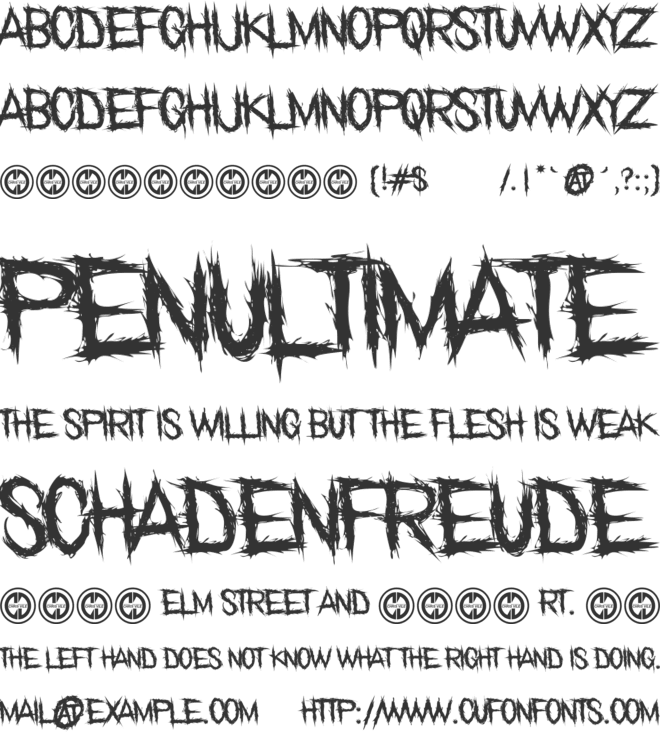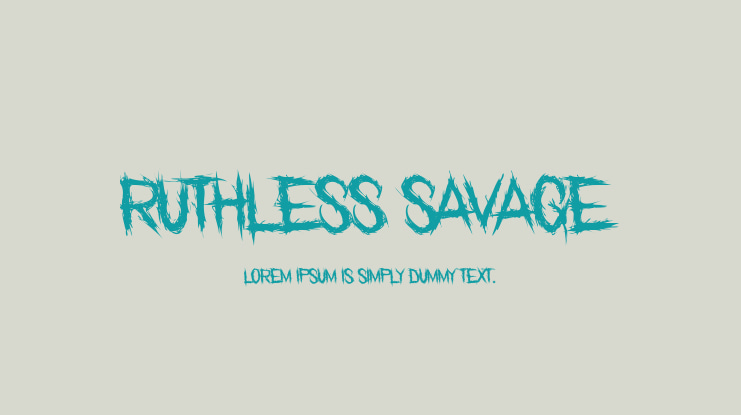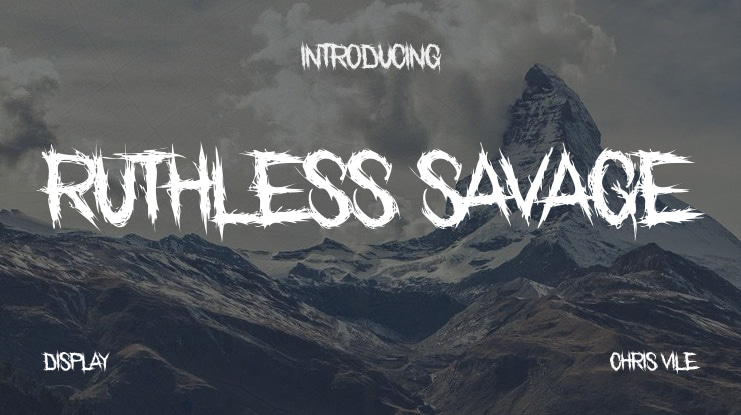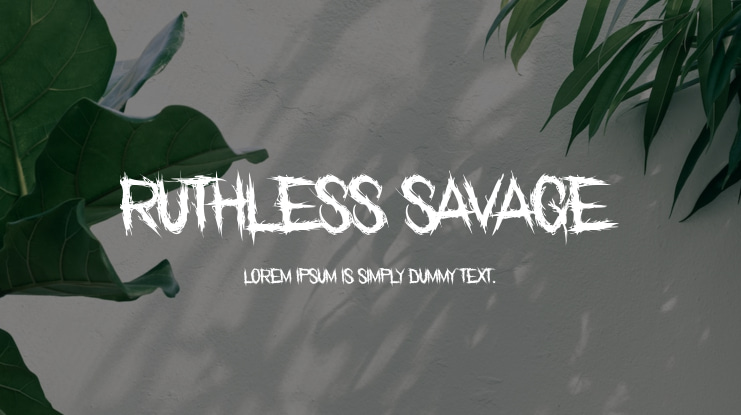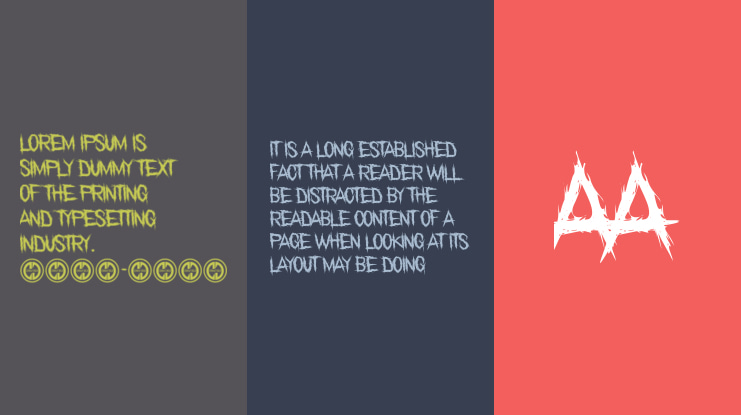
Ruthless Savage Font
Chris Vile
Unleash the horror with Ruthless Savage, the ultimate brushed font designed to bring your darkest visions to life. Perfect for horror movie posters, gothic book covers, death metal album art, and Halloween party invites, this font adds a unique, spine-chilling touch to all your creative projects.
Features:
Brushed Style: Meticulously crafted to resemble hand-painted brush strokes, giving each letter an authentic, raw look.
Horror Theme: Emphasizes a chilling horror aesthetic, perfect for creating a terrifying atmosphere.
Comprehensive Character Set: Includes Basic Latin and Latin Supplement, numbers, and most symbols, ensuring you have all the characters needed for your designs.
Versatile Application: Ideal for both print and digital projects, including posters, covers, merchandise, and more.